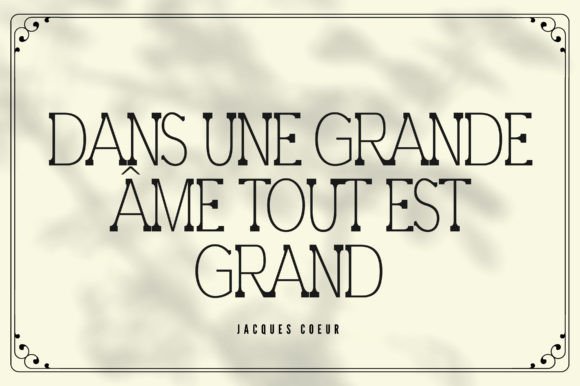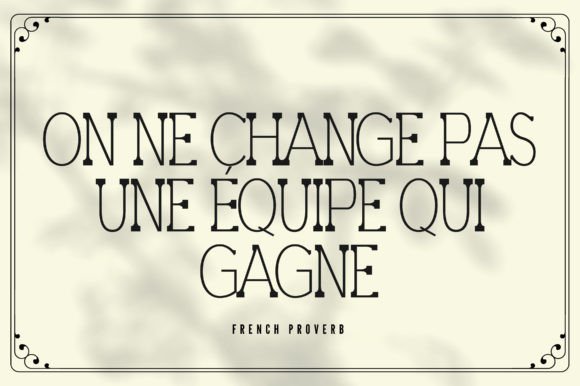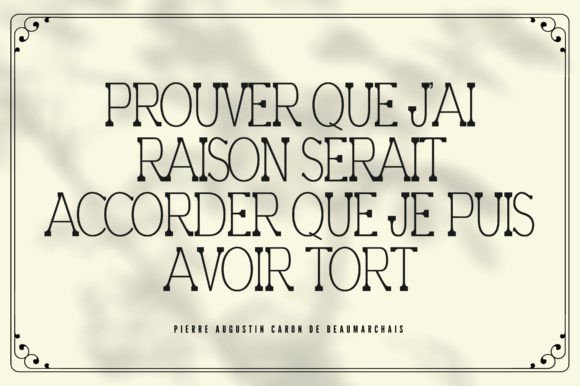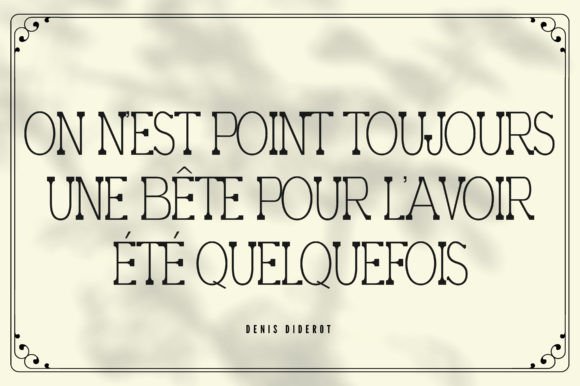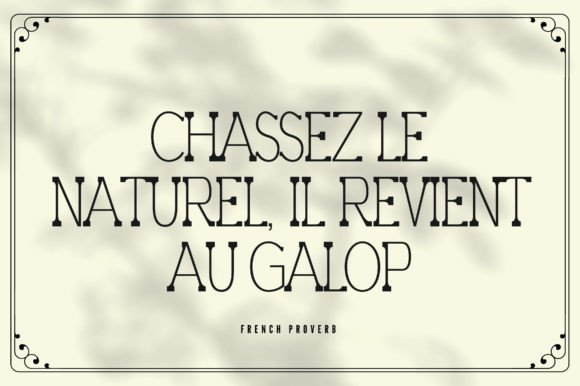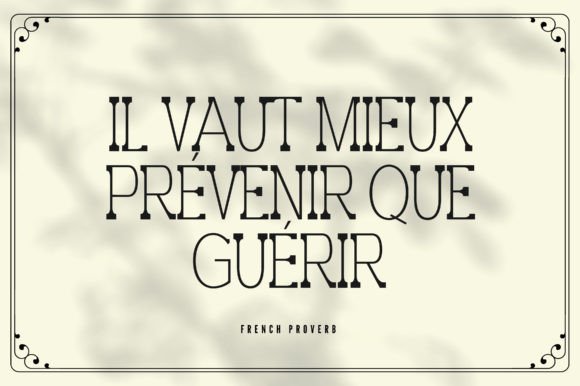
Introducing Fexire: The Ultimate Slab Serif Font for Modern Designers
In the world of typography, finding the perfect font that combines elegance, minimalism, and functionality can be a daunting task. However, with Fexire, a stunning slab serif font, your search is over. This beautifully crafted typeface is designed to cater to the needs of modern designers and crafters who seek a chic and sophisticated typeface with a minimalist touch.
A Diverse Range of Characters at Your Fingertips
Fexire boasts an impressive collection of over 604+ glyphs, providing a diverse range of characters that can be used for various design projects. Whether you’re working on branding, editorial layouts, or marketing materials, this font has got you covered. With Fexire, you can add a touch of sophistication and modernity to your designs, making it an ideal choice for businesses and individuals who want to stand out with a distinctive yet professional image.
The Perfect Blend of Boldness and Minimalism
Fexire’s bold and striking lines create a sense of sophistication and modernity, while its minimalistic approach adds a touch of subtlety and refinement. This unique blend makes it an ideal choice for designers who want to create a lasting impression with their designs. The font’s sleek and modern design ensures that your typography stands out, whether you’re designing a website, creating a logo, or developing marketing materials.
Multilingual Support for Global Audiences
In today’s globalized world, designing for diverse audiences has become the norm. Fexire understands this need and offers multilingual support, making it a versatile font that can be used for various projects. Whether you’re designing for a local market or a global audience, this font ensures that your typography is consistent and professional.
Endless Design Possibilities with Fexire
Fexire’s versatility and range of characters make it an excellent choice for various design projects. Here are some of the many ways you can use Fexire:
- Branding: Create a lasting impression with Fexire’s bold and striking lines, perfect for logos, business cards, and letterheads.
- Editorial Layouts: Add a touch of sophistication and elegance to your editorial layouts, including magazines, newspapers, and books.
- Marketing Materials: Use Fexire to create professional and eye-catching marketing materials, such as brochures, flyers, and posters.
- Web Design: Enhance your website’s typography with Fexire’s sleek and modern design, ensuring a consistent and professional look.
Why Choose Fexire?
With so many fonts available, why choose Fexire? Here are some compelling reasons:
- Unique Blend: Fexire’s perfect blend of boldness and minimalism sets it apart from other fonts.
- Multilingual Support: Cater to diverse audiences with Fexire’s multilingual support.
- Versatility: Use Fexire for various design projects, from branding to editorial layouts.
- Elegance and Sophistication: Add a touch of elegance and sophistication to your designs with Fexire’s sleek and modern design.
In conclusion, Fexire is a beautifully crafted slab serif font that combines elegance, minimalism, and functionality in one. Its sleek and modern design, coupled with its diverse range of characters and multilingual support, make it an ideal choice for designers and crafters. Whether you’re working on branding, editorial layouts, or marketing materials, Fexire is the perfect font to elevate your designs and make a lasting impression.